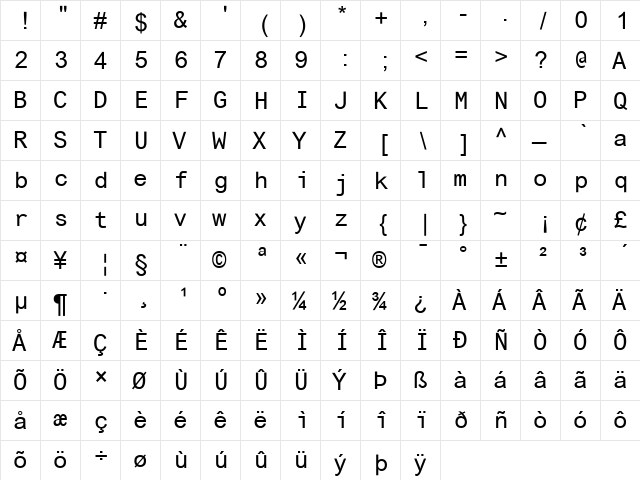
Arial Monospaced MT Regular
Design Context for Arial Monospaced MT Typeface
Arial Monospaced MT brings the precise, column-aligned rhythm of monospaced typography to designs that value technical clarity and systematic order.
A natural fit for code editors, technical documentation, developer-focused branding, and terminal-inspired UI.
Pro Tip: Pair Arial Monospaced MT with a proportional sans for UI contexts where code-style labels and regular body copy need to coexist.